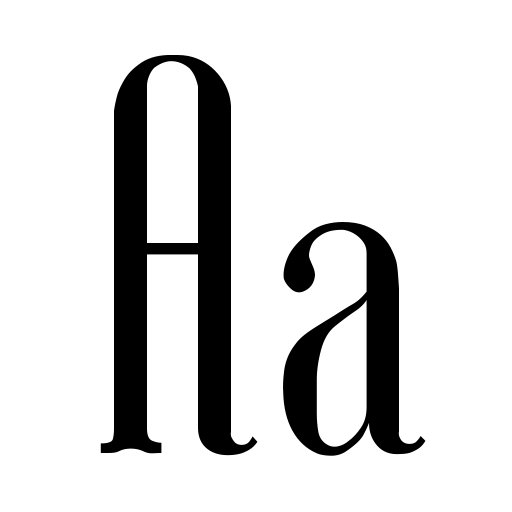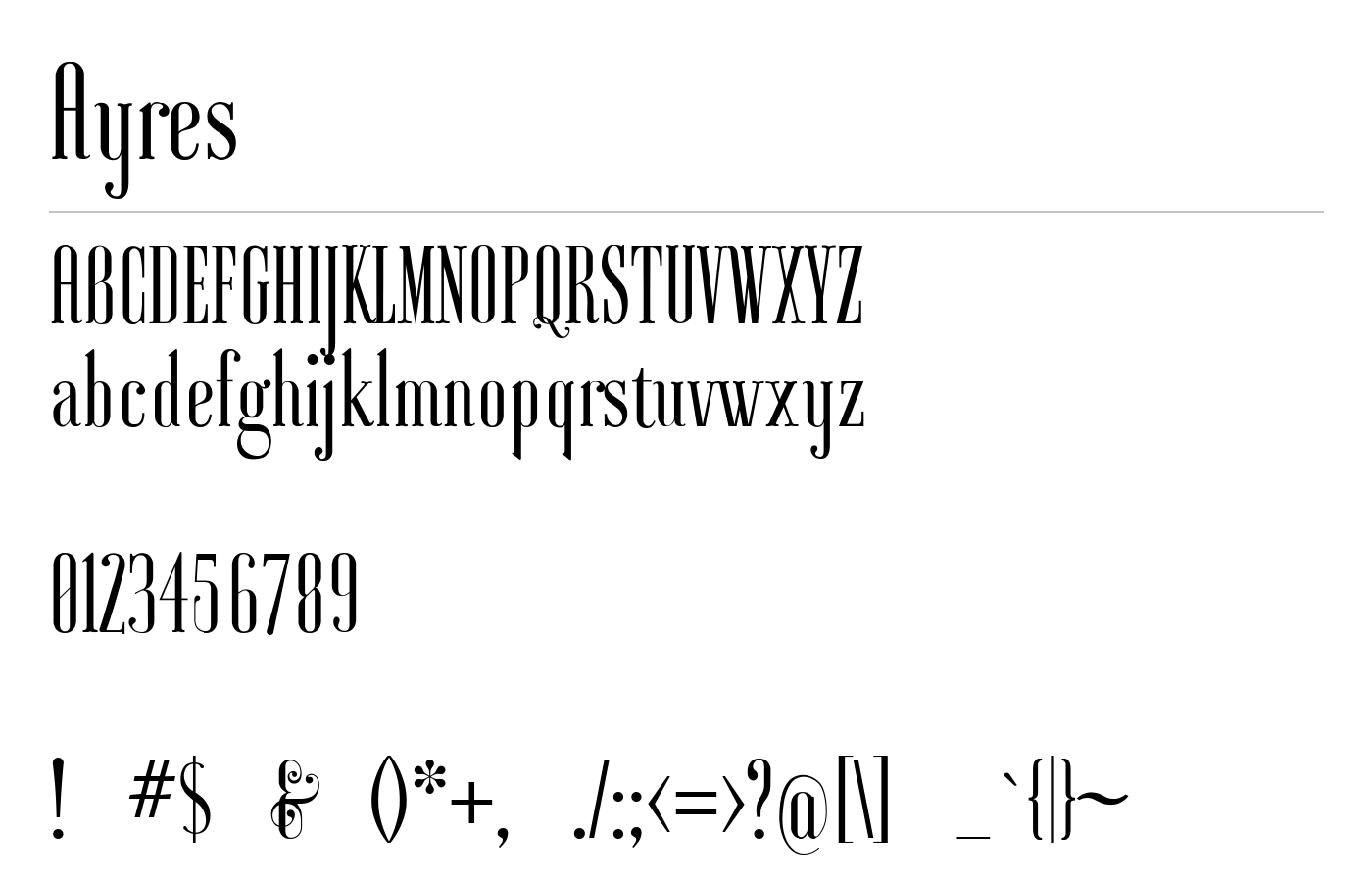
Ayres is a tall, slender serif font with a strong vintage vibe, characterized by its high contrast between thick and thin strokes and fine, bracketed serifs. Its narrow letterforms and elegant details like the unique tail on the Q and the curled ampersand give it a refined, distinctive appearance ideal for sophisticated branding, headlines, and editorial design where a touch of classic elegance is desired. This font works beautifully in fashion, luxury packaging, and stylish posters, effectively conveying a mood of timeless grace with a modern twist.
Ayres Font
About Ayres Font